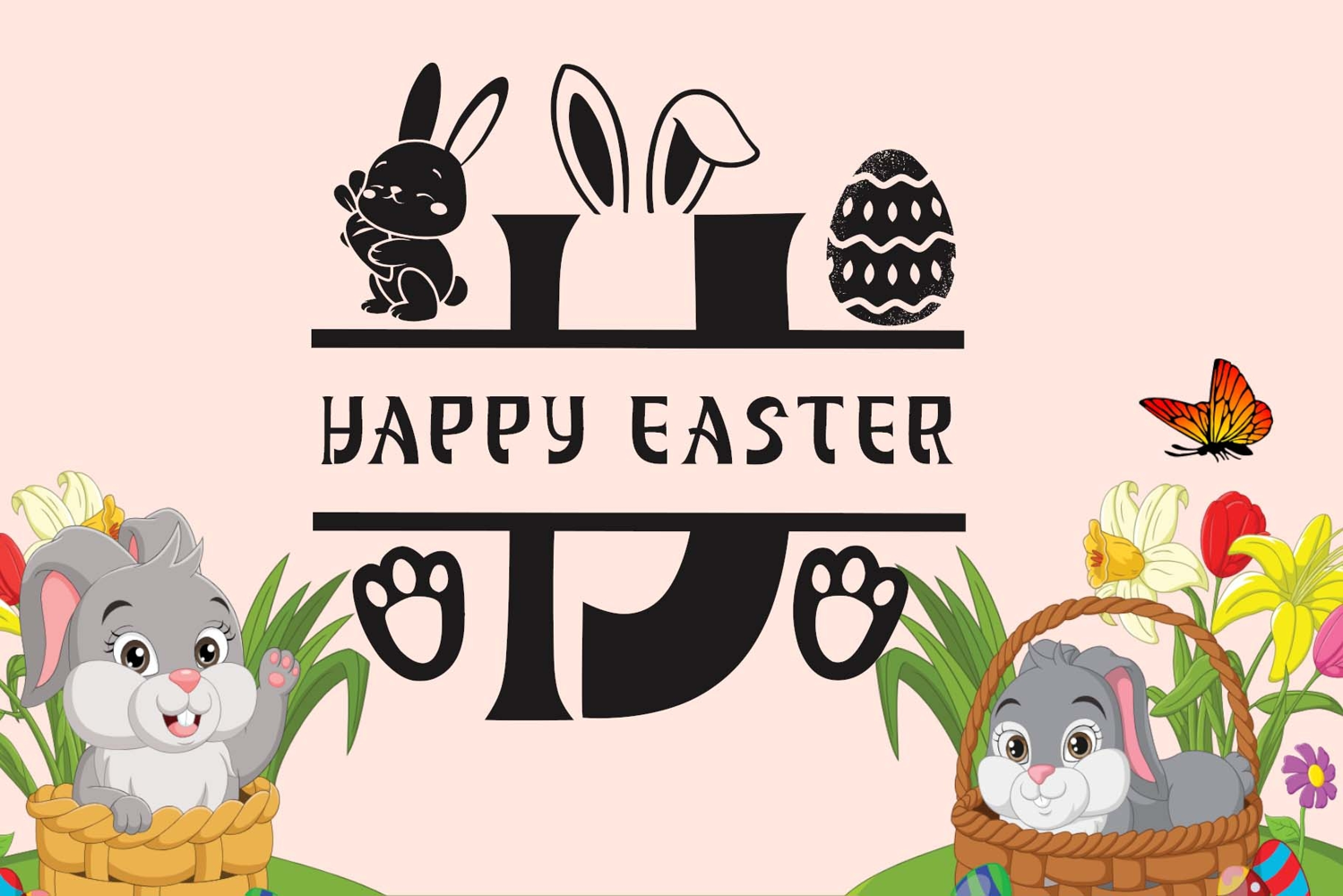
Perfect Easter Monogram
"Perfect Easter Monogram" is a unique and elegant monogram font. This font is equipped with monograms, uppercase, lowercase, numerals, punctuations and multilingual support. It is very suitable for banners, posters, spring, summer, easter, branding, stickers, logos, procreate, invitations and others.